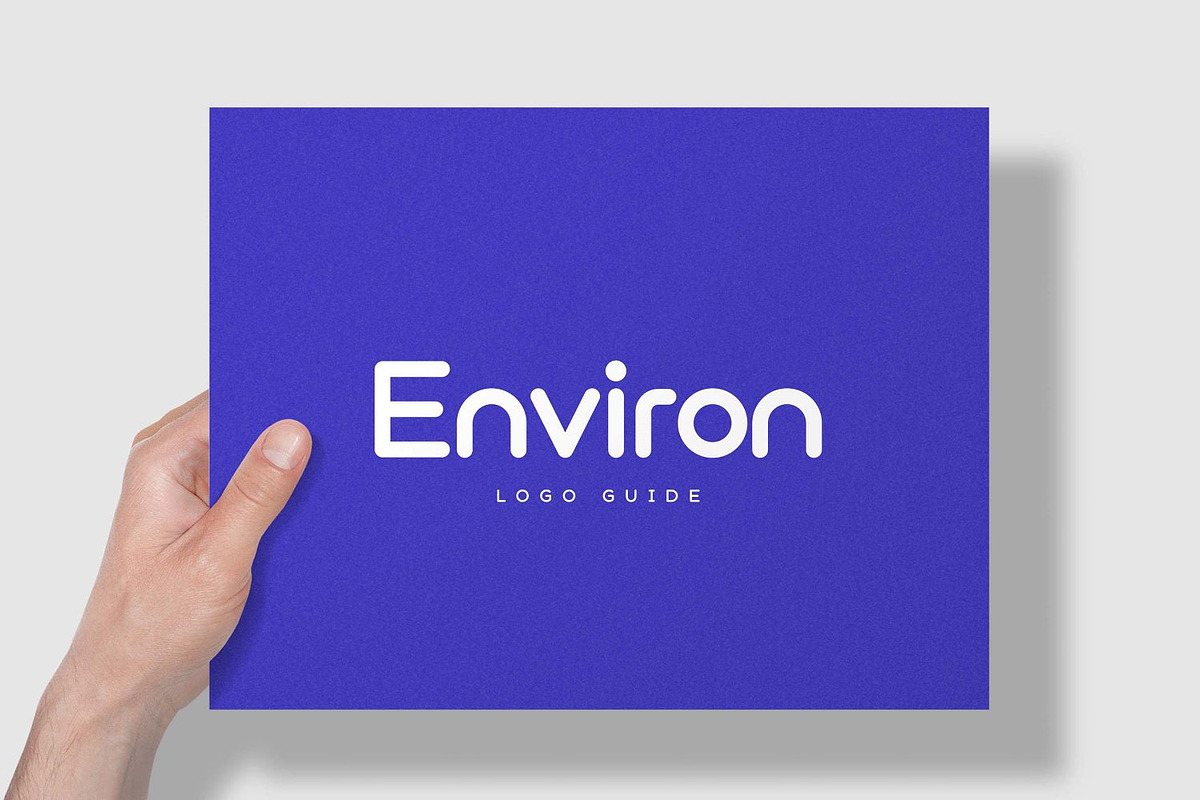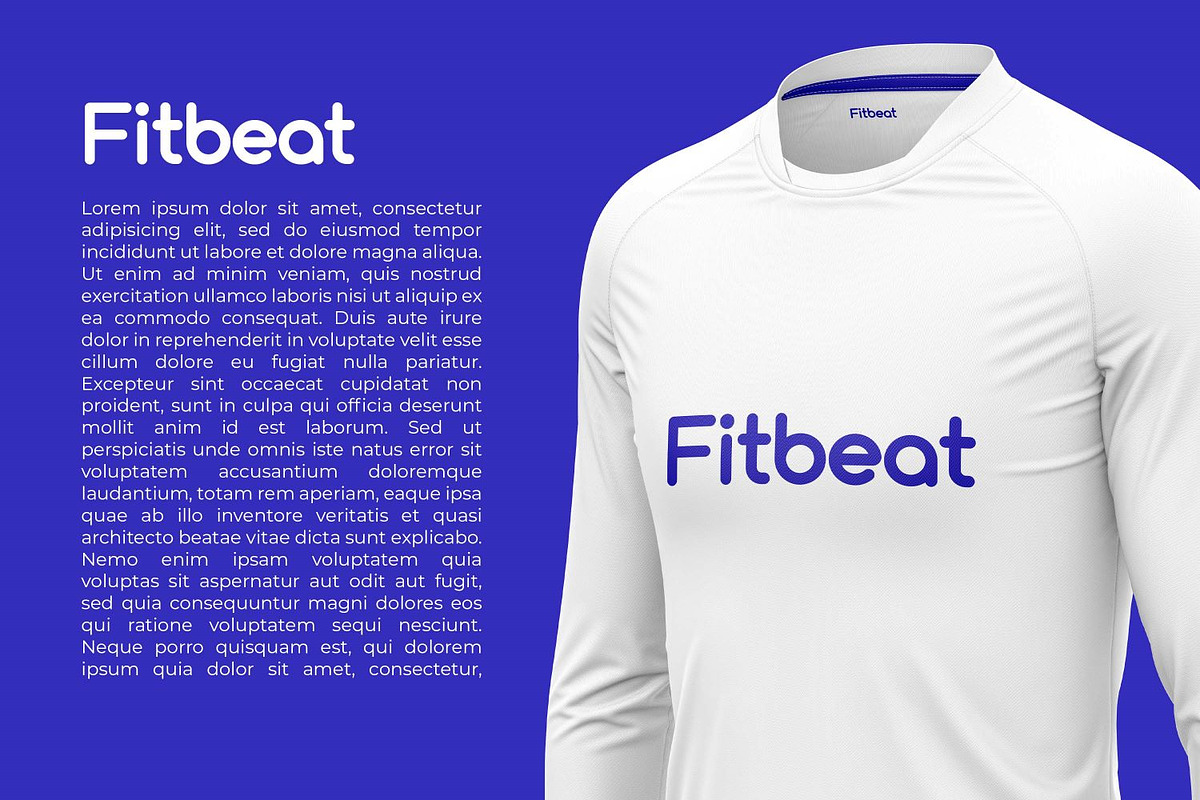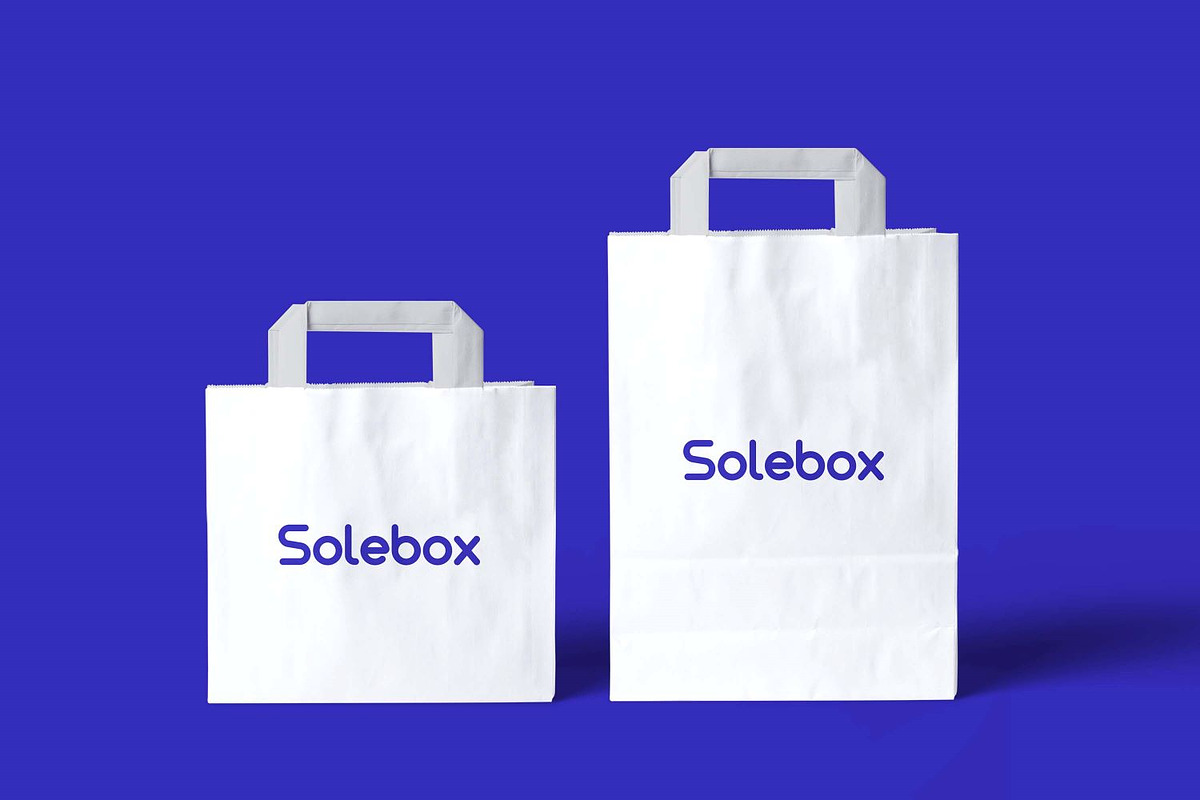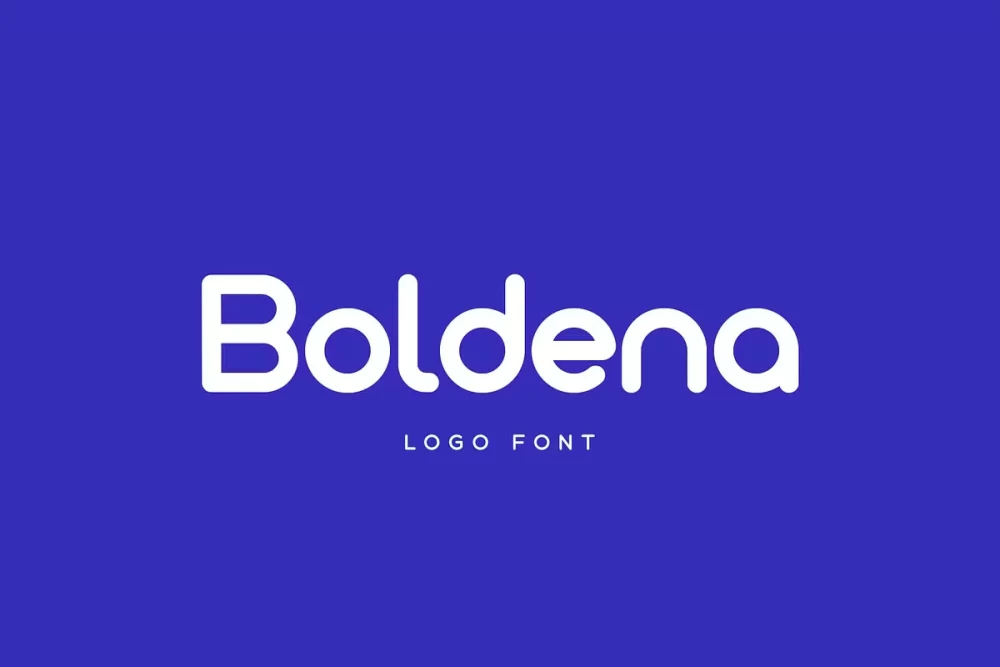
Boldena Font
Boldena is a bold rounded sans serif that a typeface that is specifically designed for logotype or modern branding into your design project. It’s clean and neat to use, with additional accents up to 66 languages.
• Additional Accents
• 66 Languages
• Kerning
• Alternates
• Ligatures